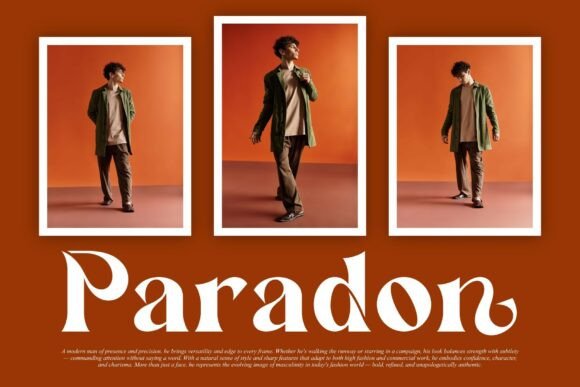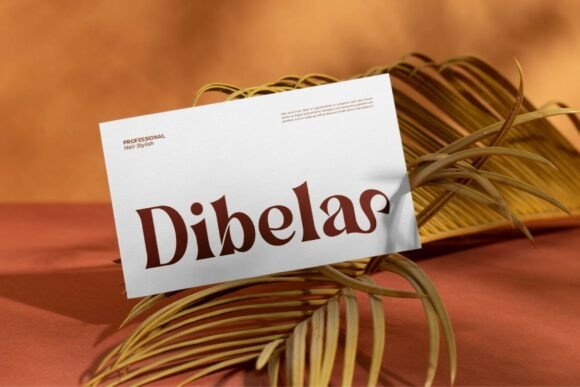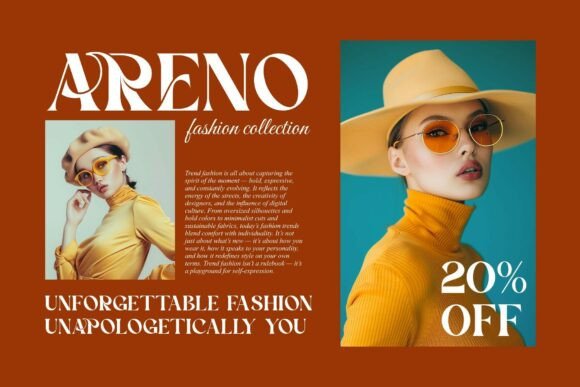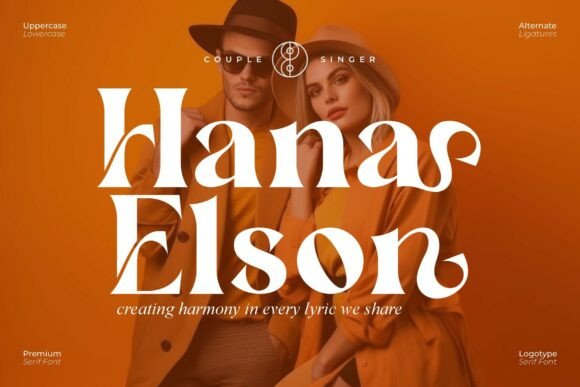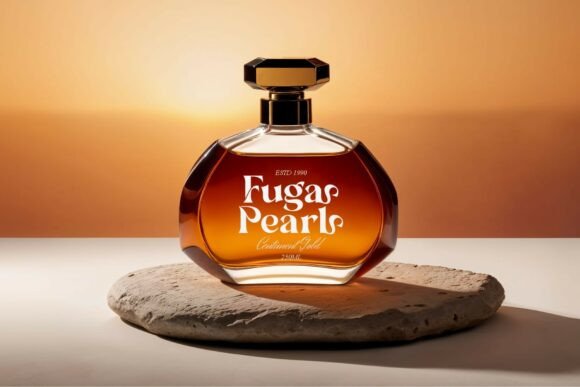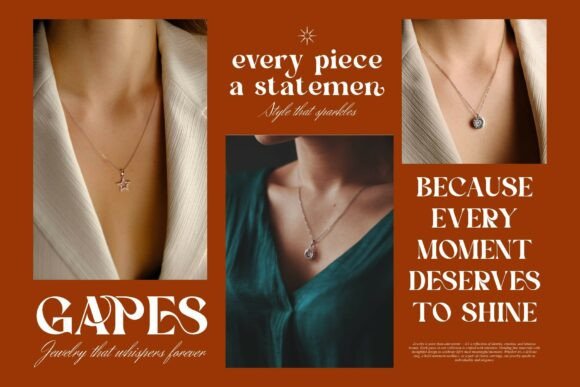
Introduction to Redian Font
Redian Serif is a modern and classy font type for all branding and logo designs.
This modern and classy Serif font has a beautiful character This font is suitable for invitation card designs, cool logos, movie titles, movie names, business cards, book titles, brand names, and various other designs.